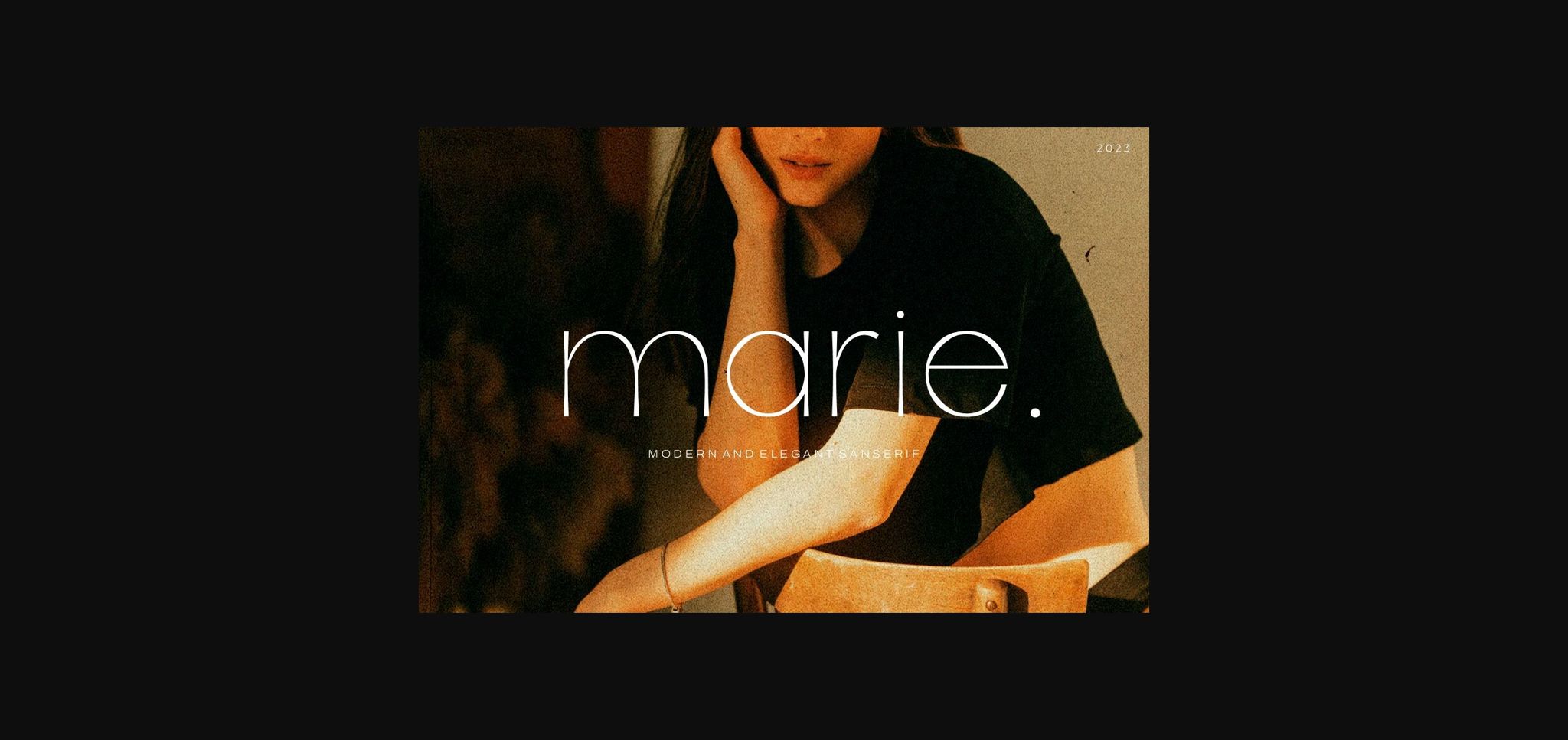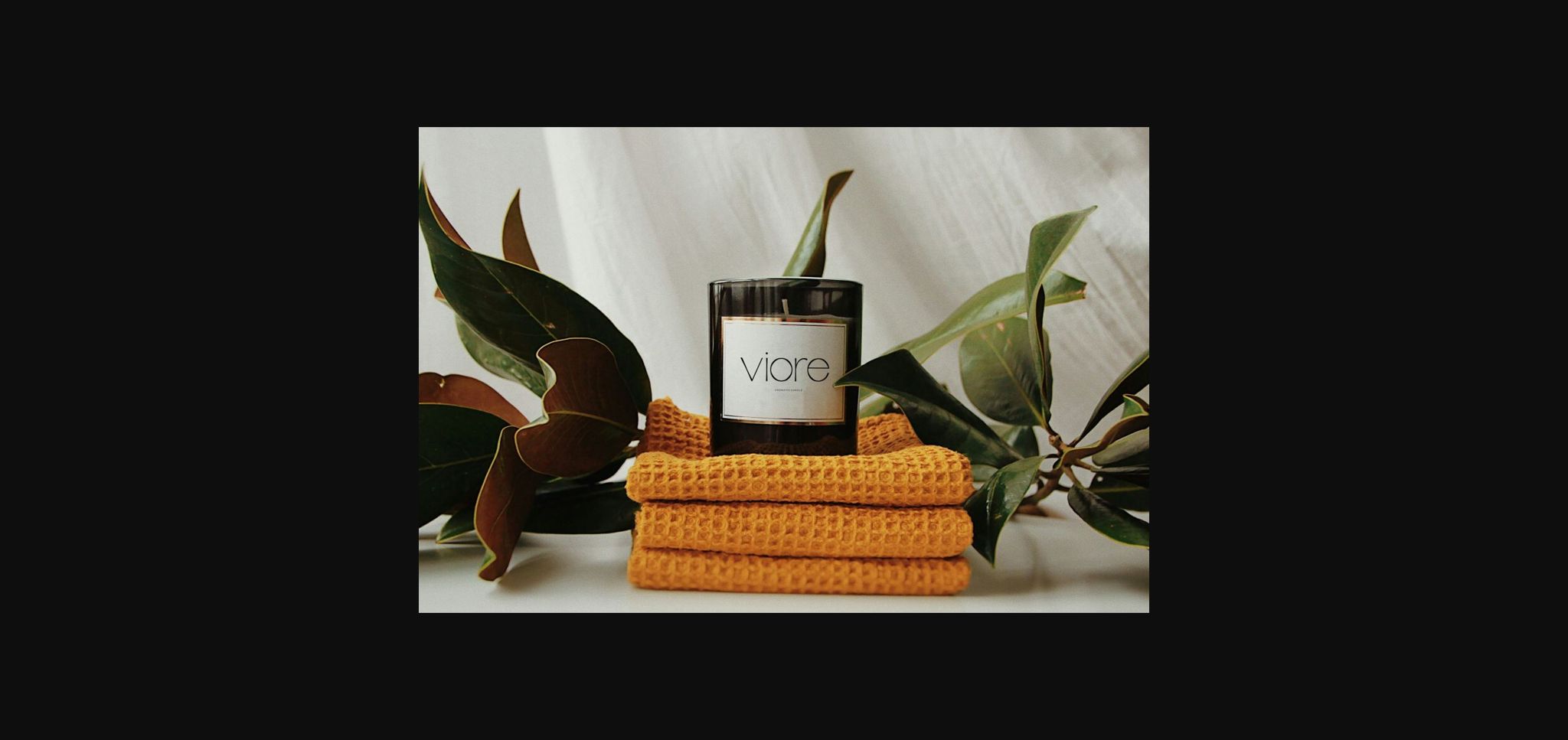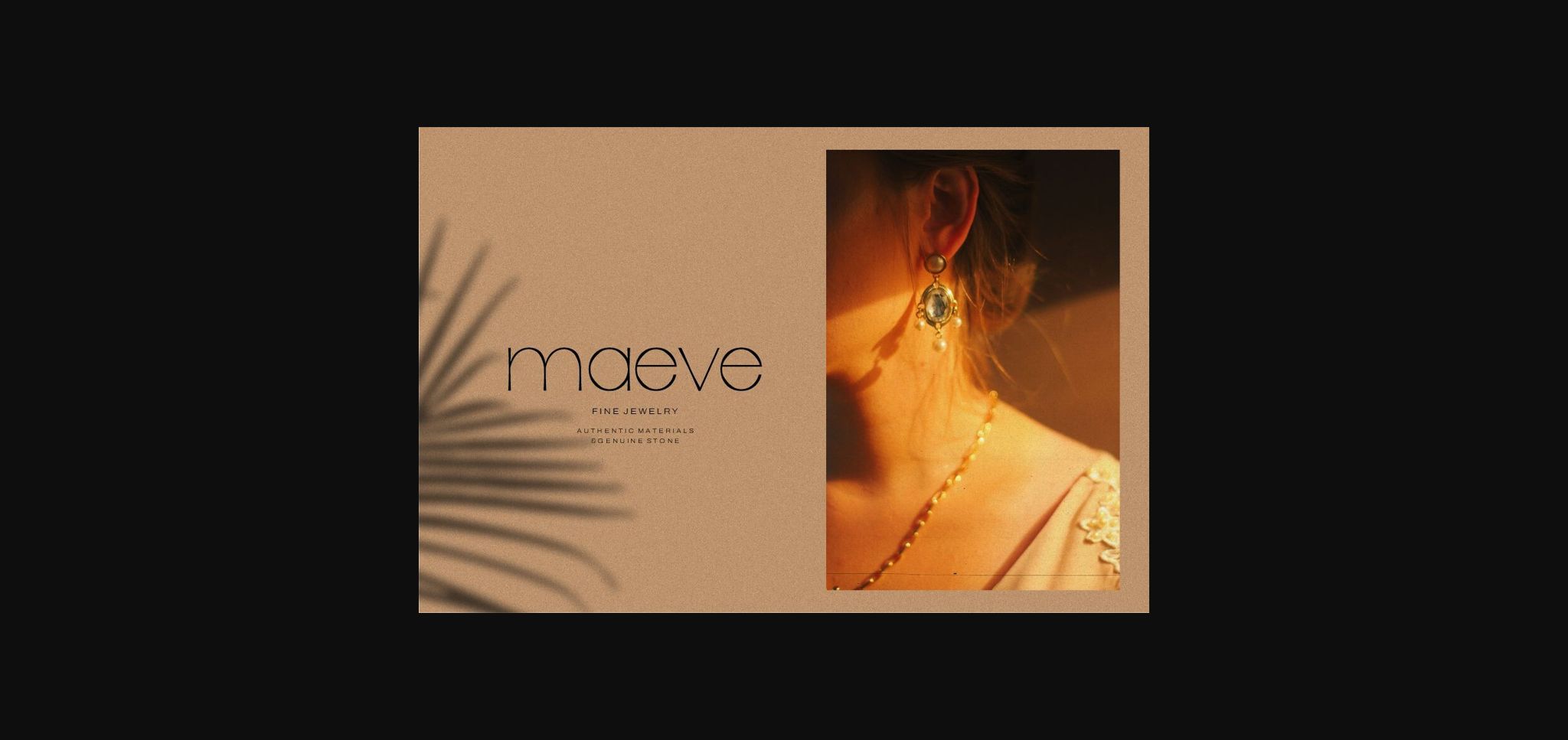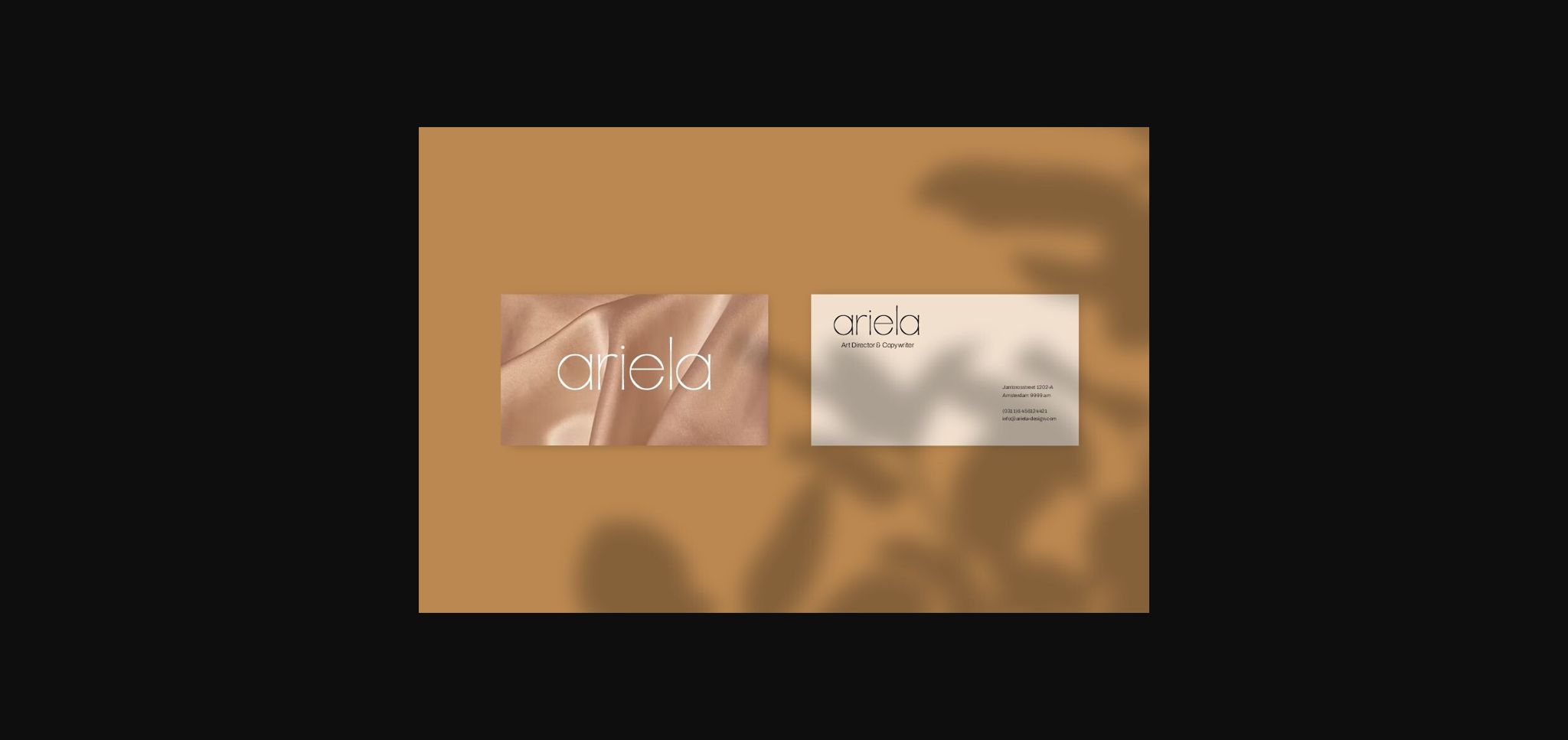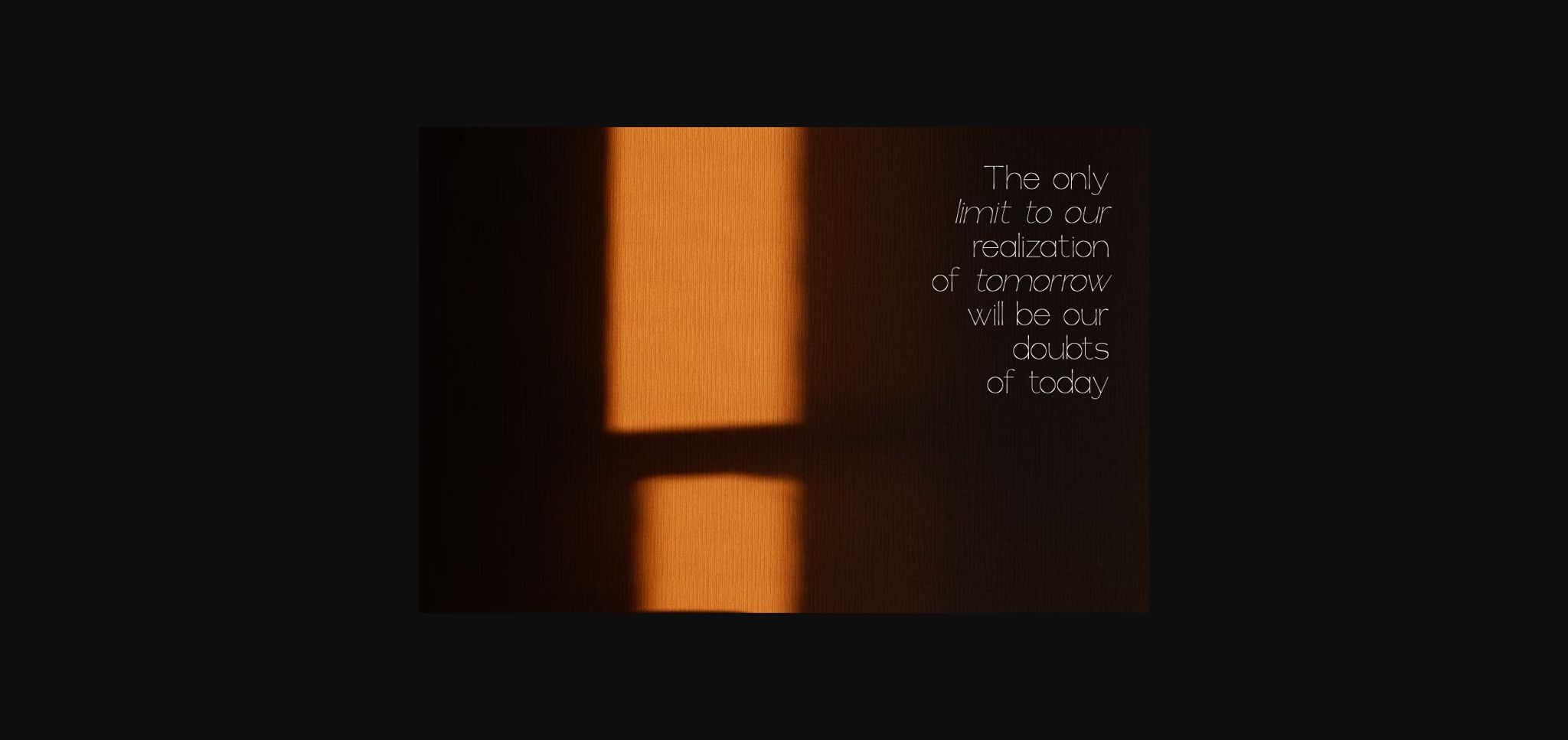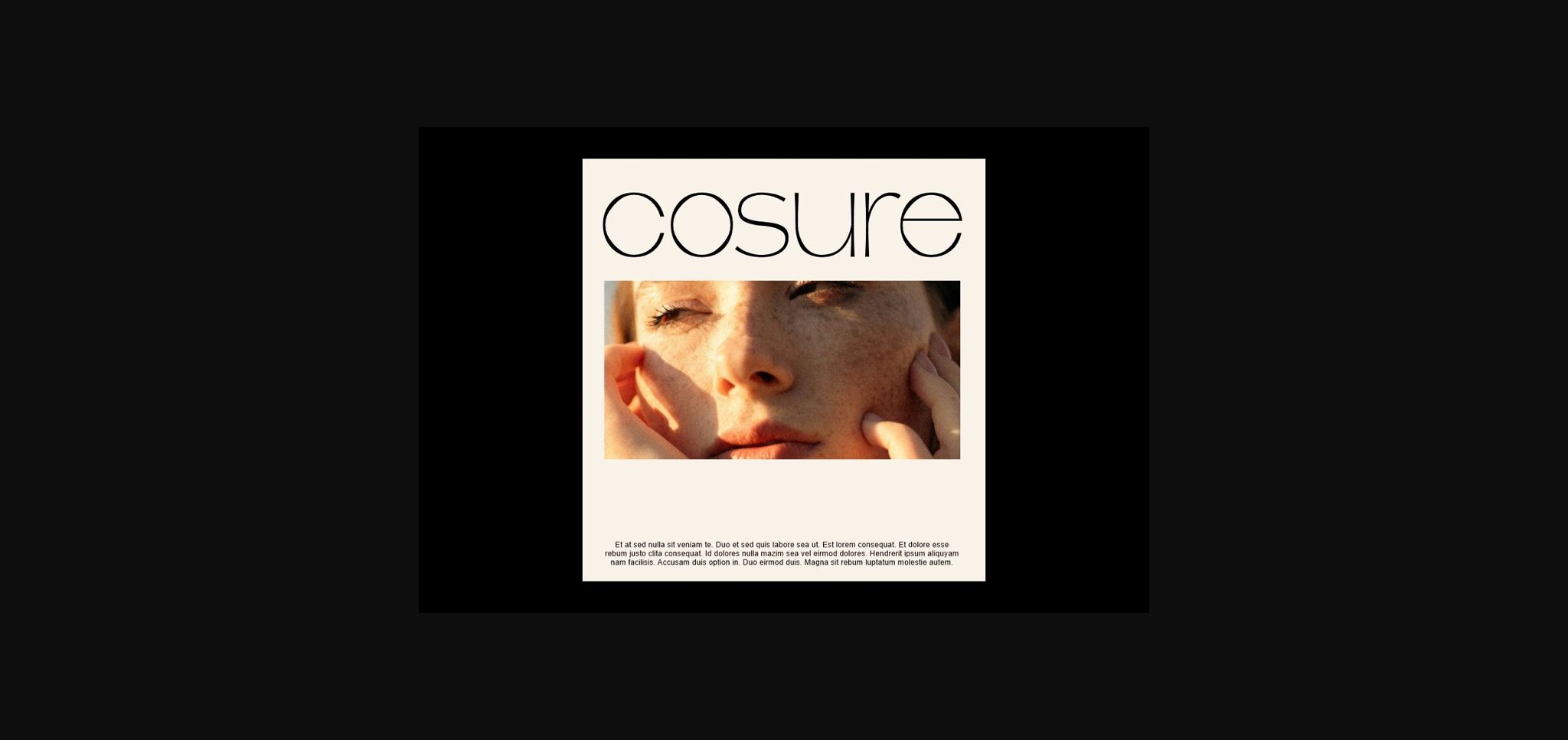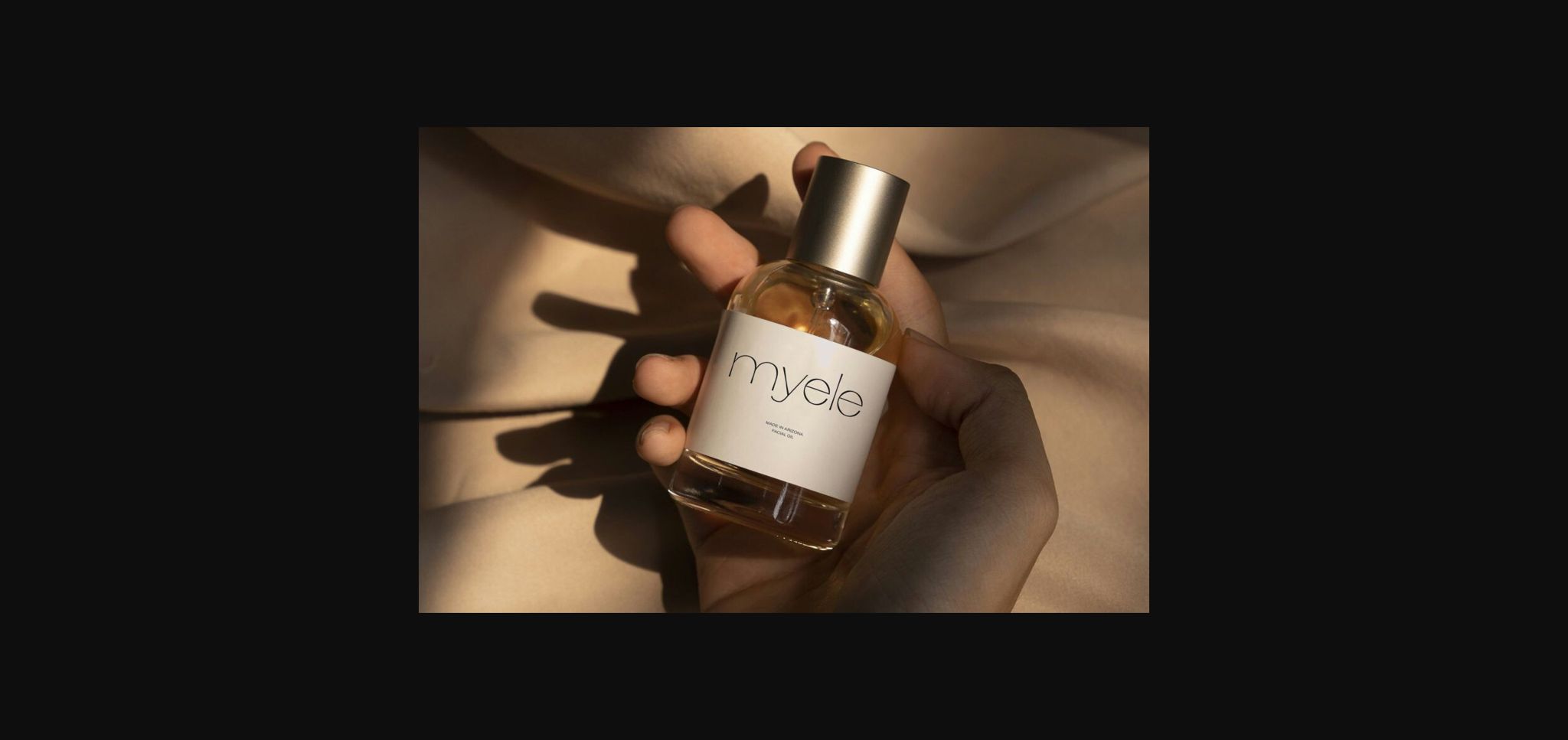
About Marie Font
Introducing, Marie Typeface. A modern and trendy sans serif font that’s perfect for any luxury design.
This type of font is perfectly made to be applied especially in logos, headlines, signage, and the other various formal forms such as invitations, labels, logos, magazines, books, greeting/wedding cards, packaging, fashion, makeup, stationery, novels, labels or any advertising purpose.